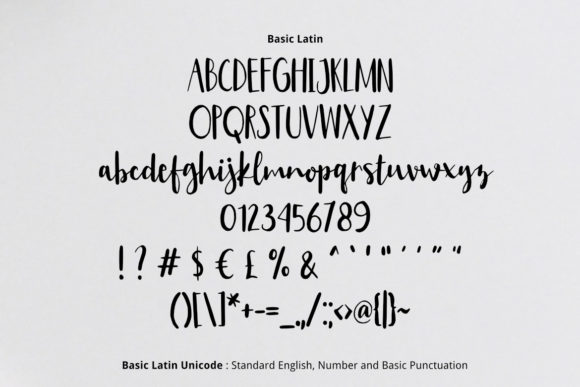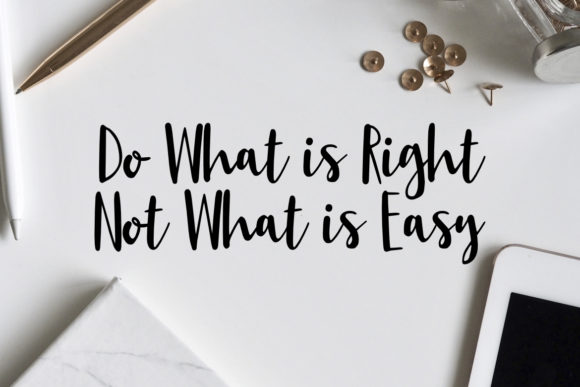
Introduction to Manise Font
Manise simplifies elegance into one truly outstanding handwritten font.
This font will look outstanding in any context, whether it’s being used on busy backgrounds or as a standalone headline .
Key Features of Manise Font
Why Choose Manise Font?